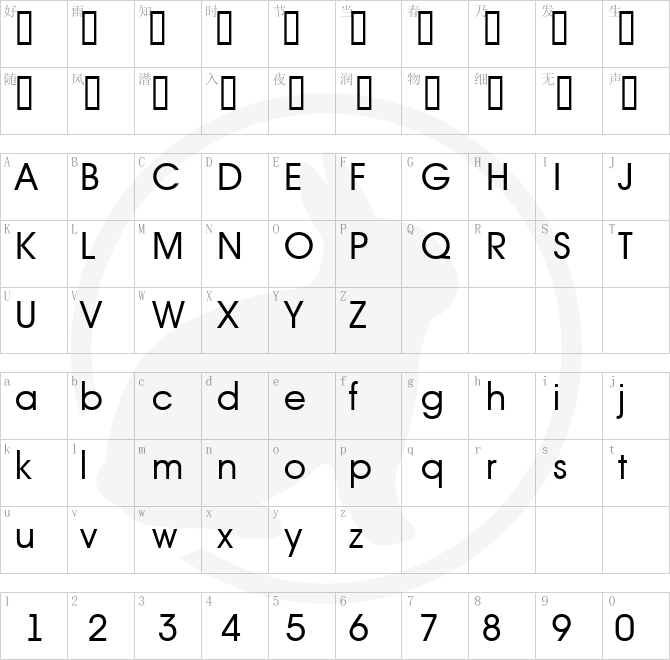
- Font Name:a_AvanteInt
- Subfamily:Book
- Subfamily:Macromedia Fontographer 4.1 a_AvanteInt Book
- Full Name:a_AvanteInt Book
- PostScript:AAvanteIntBook
a_AvanteInt-Book.ttf is a very beautiful artistic font, a_AvanteInt-Book.ttf is widely used in the design and printing of various books and pictures,a_AvanteInt-Book.ttf has a strong visual impact,a_AvanteInt-Book.ttf is a commonly used font in newspapers, magazines and books, and is used in posters, e-commerce Poster design, store design, logo design, font design and other fields.a_AvanteInt-Book.